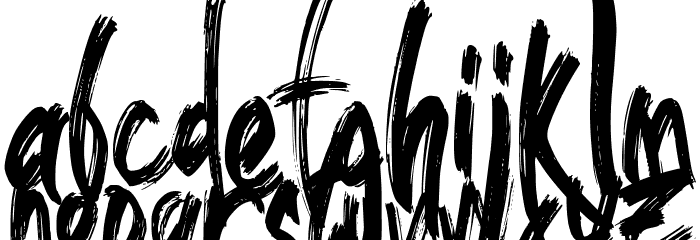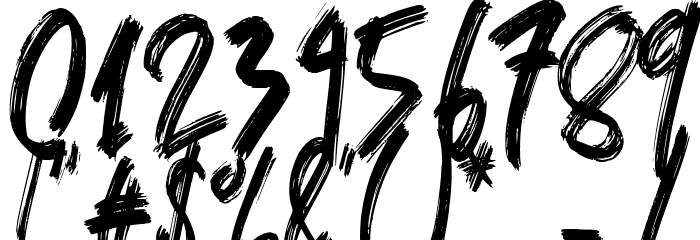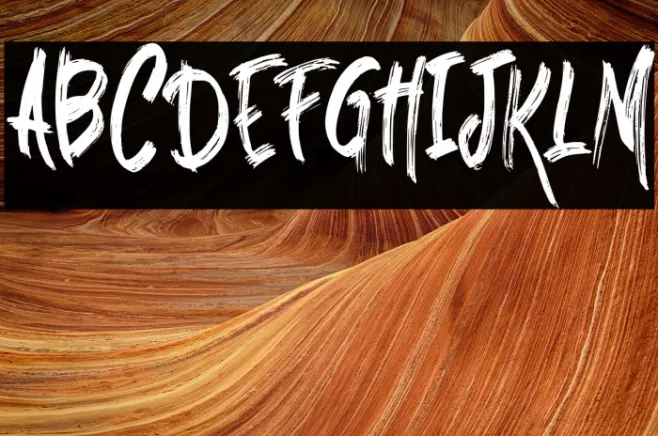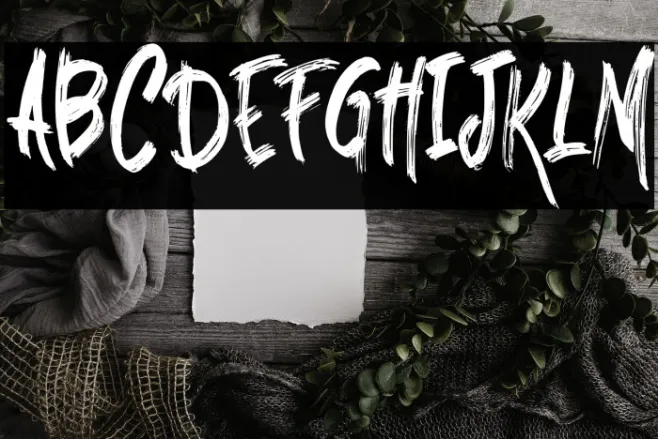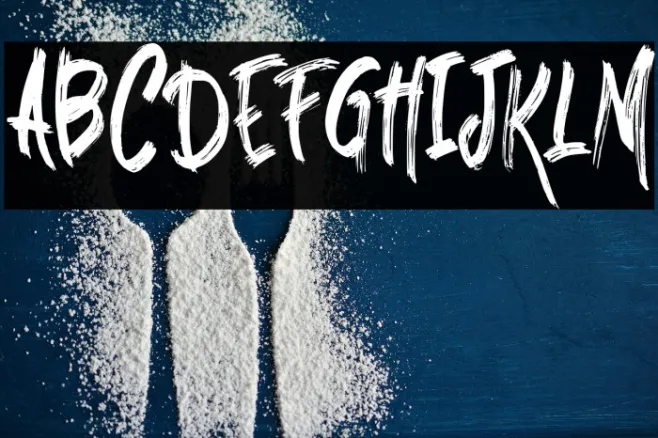
false nine Font
This font exudes a raw, energetic style with its brush-like strokes and dynamic appearance. Each character is crafted with an expressive flair, giving the impression of being hand-painted with bold, sweeping motions. The uppercase letters are tall and commanding, while the lowercase letters maintain a consistent flow, adding to the overall artistic vibe. Numbers and special characters follow the same expressive style, ensuring a cohesive look across all text. The font's unique texture and irregular edges contribute to its distinctive, edgy personality, making it ideal for projects that require a bold and artistic touch.
A dynamic, brush-stroke font with an expressive, hand-painted style.
- Font: false nine
- Proposed Projects: Ideal for artistic posters, album covers, streetwear branding, and creative advertising campaigns.
- Overall Style: Modern, Artistic